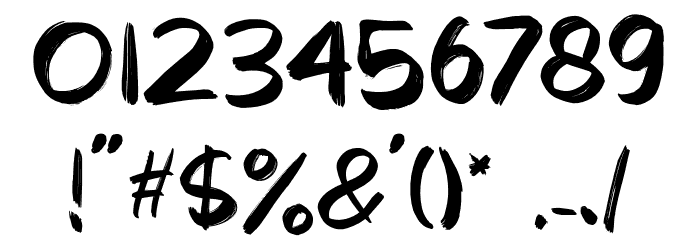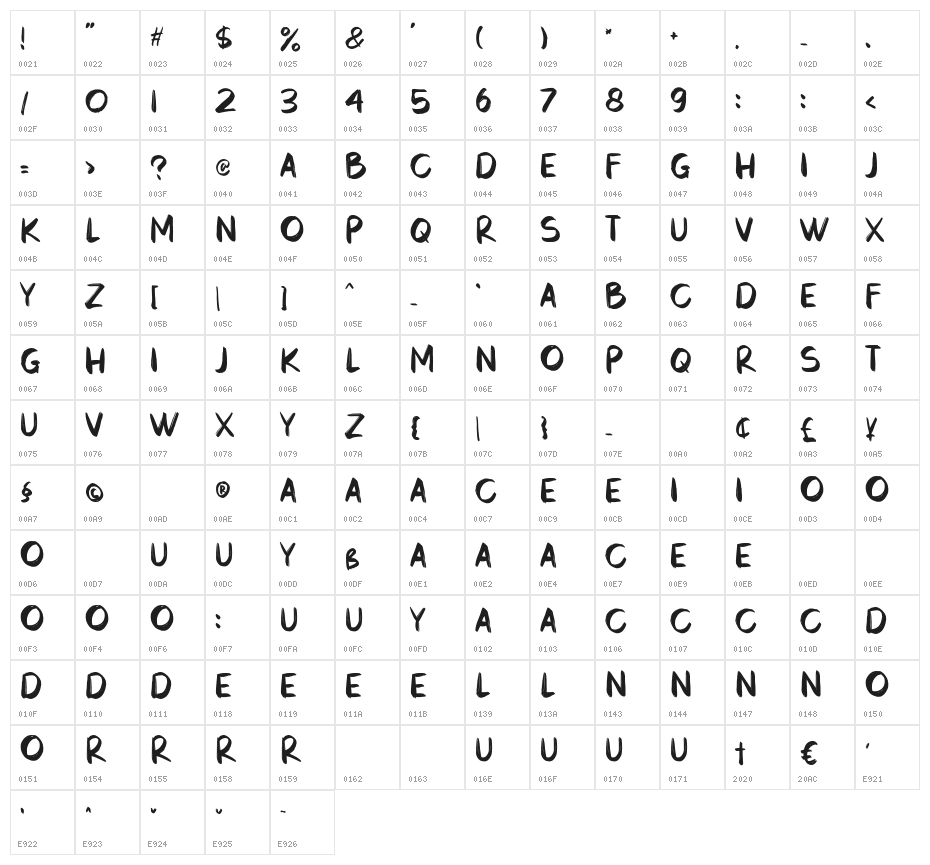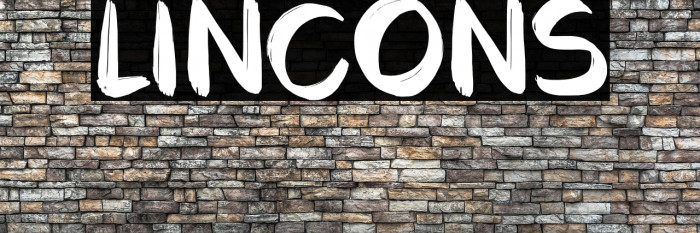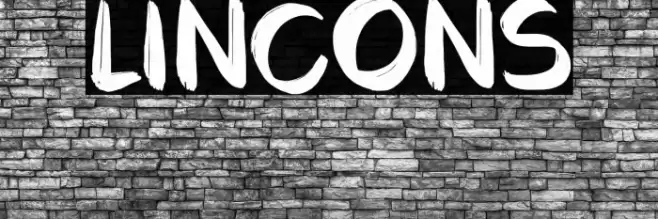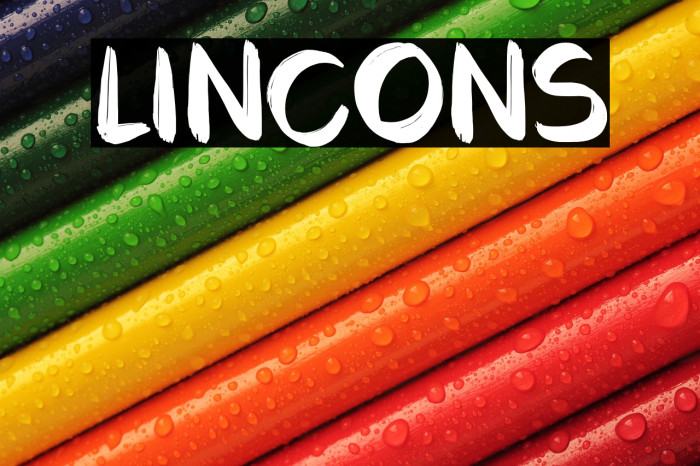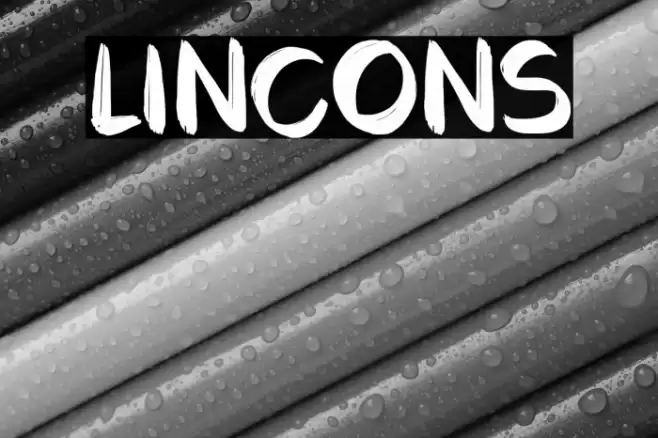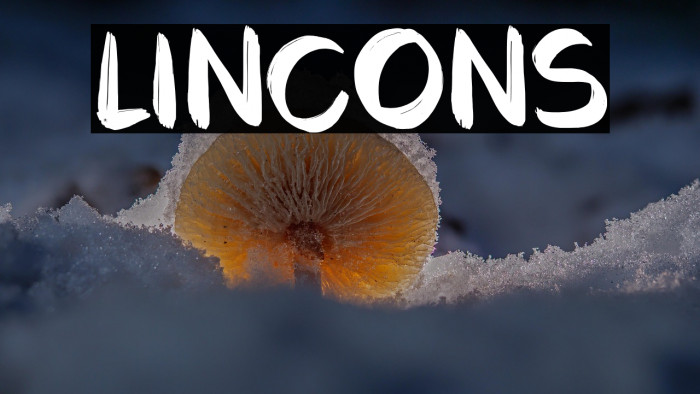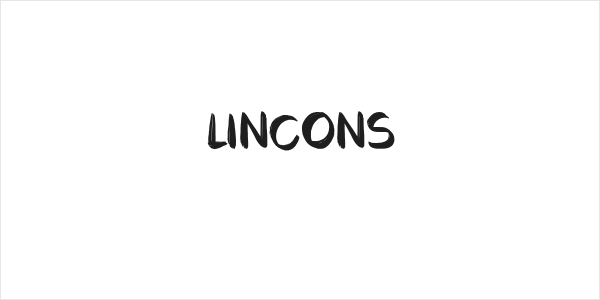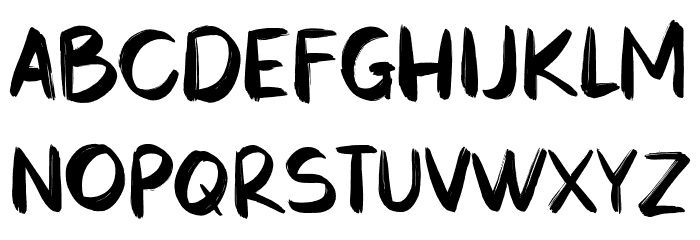
LINCONS Font
LINCONS Description
This font features a bold, brush-like style that exudes energy and dynamism. The strokes are thick and uneven, giving it a hand-painted appearance that is both artistic and expressive. The uppercase and lowercase letters maintain a consistent flow, with rounded edges and a slightly irregular baseline that adds to its casual charm. Numbers and special characters are equally bold, ensuring they stand out in any design. This font is perfect for projects that require a touch of creativity and spontaneity.
| Proposed Projects | Ideal for posters, logos, branding materials, and any design that needs a creative and dynamic touch. |